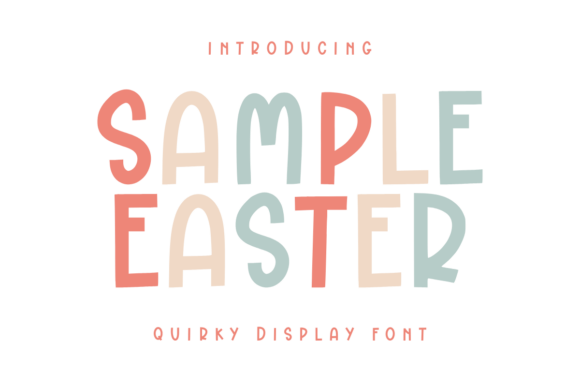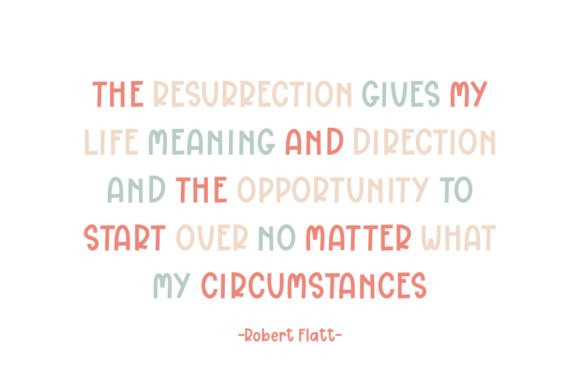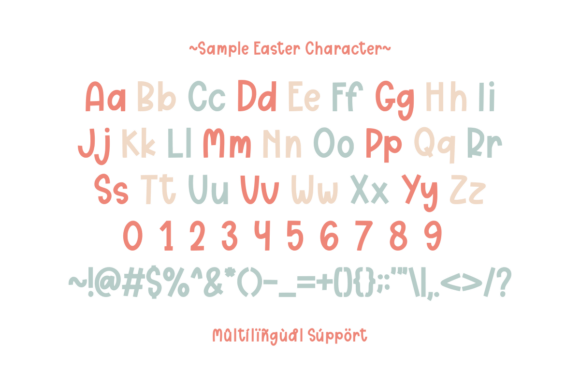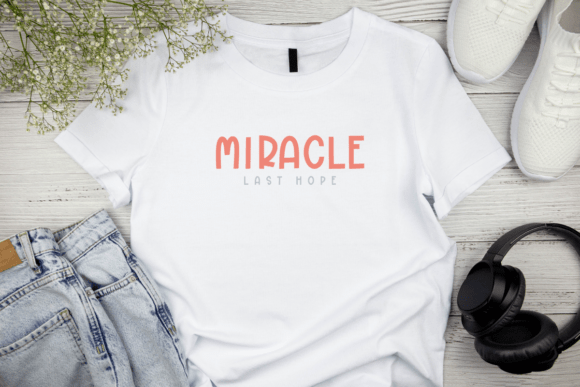
Sample Easter Font
About the Sample Easter Font
Let us introduce you to Sample Easter Font, where timeless design meets modern craftsmanship. Sample Easter is a quirky and colorful display font bursting with playful charm. Its mix of uneven shapes and soft pastel tones gives it a whimsical vibe, perfect for Easter projects, party invitations, children’s products, and creative branding. It’s sweet, fun, and guaranteed to brighten up any design!
Sample Easter Font Usage Examples
Sample Easter Font Example